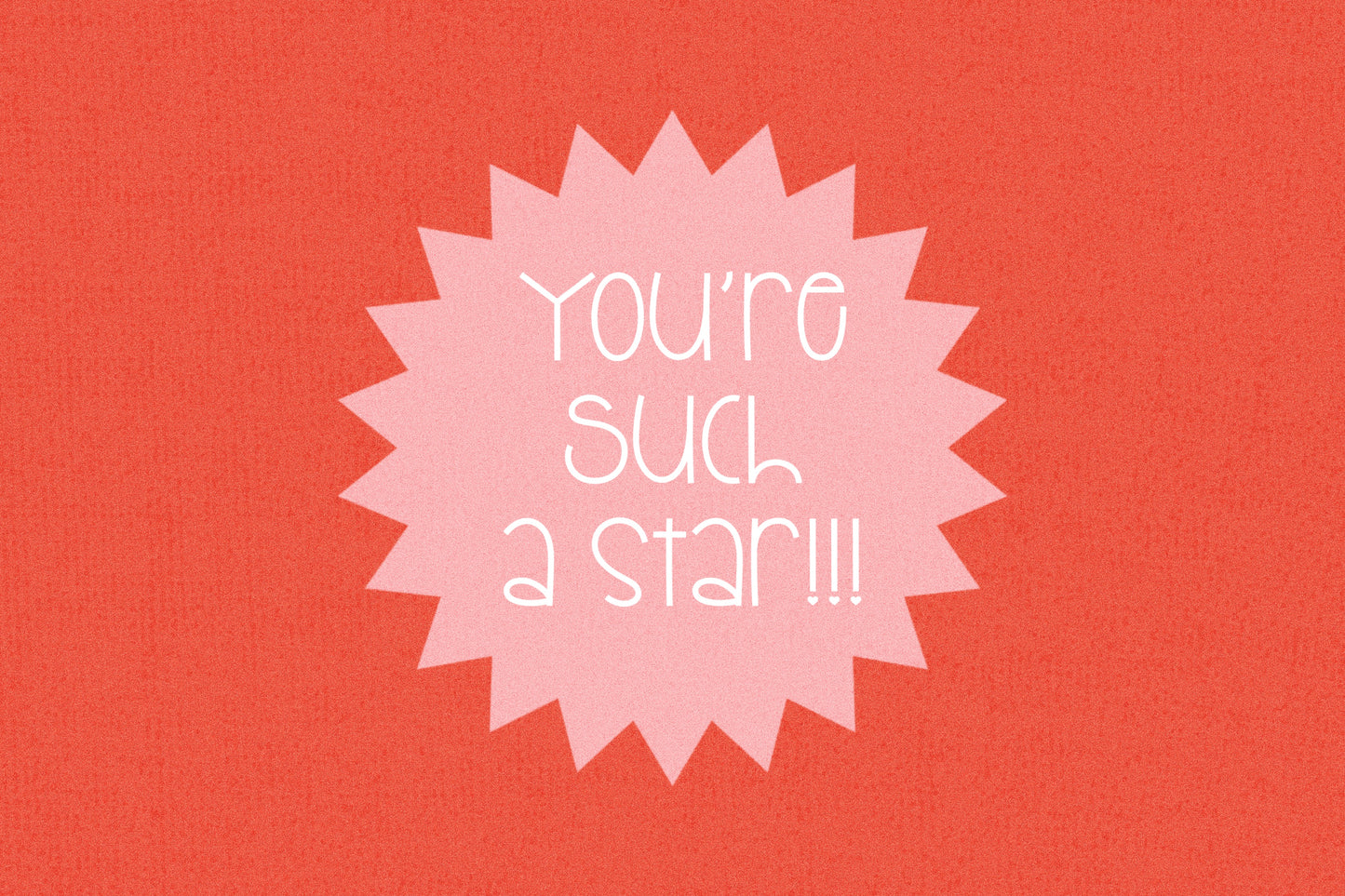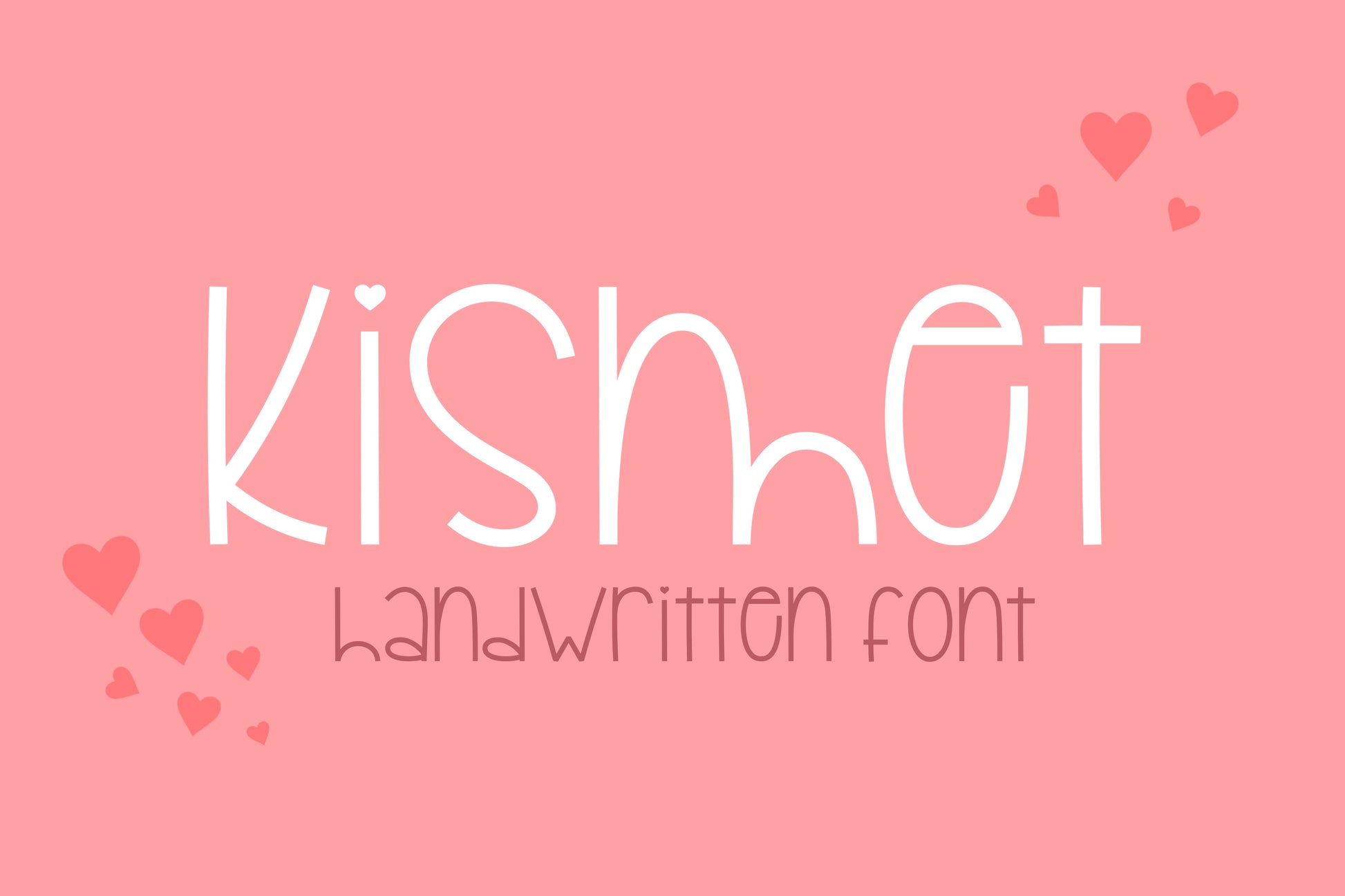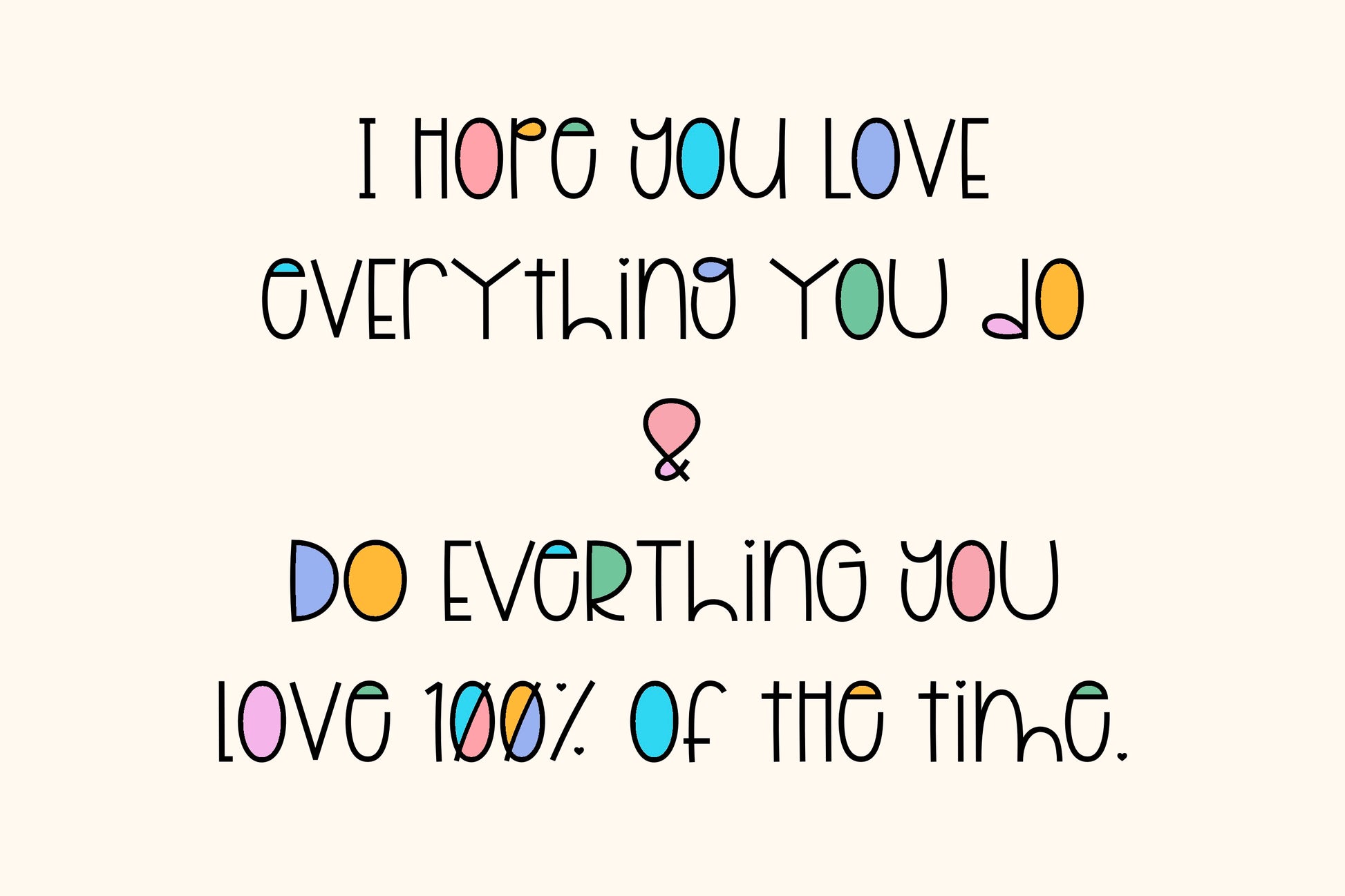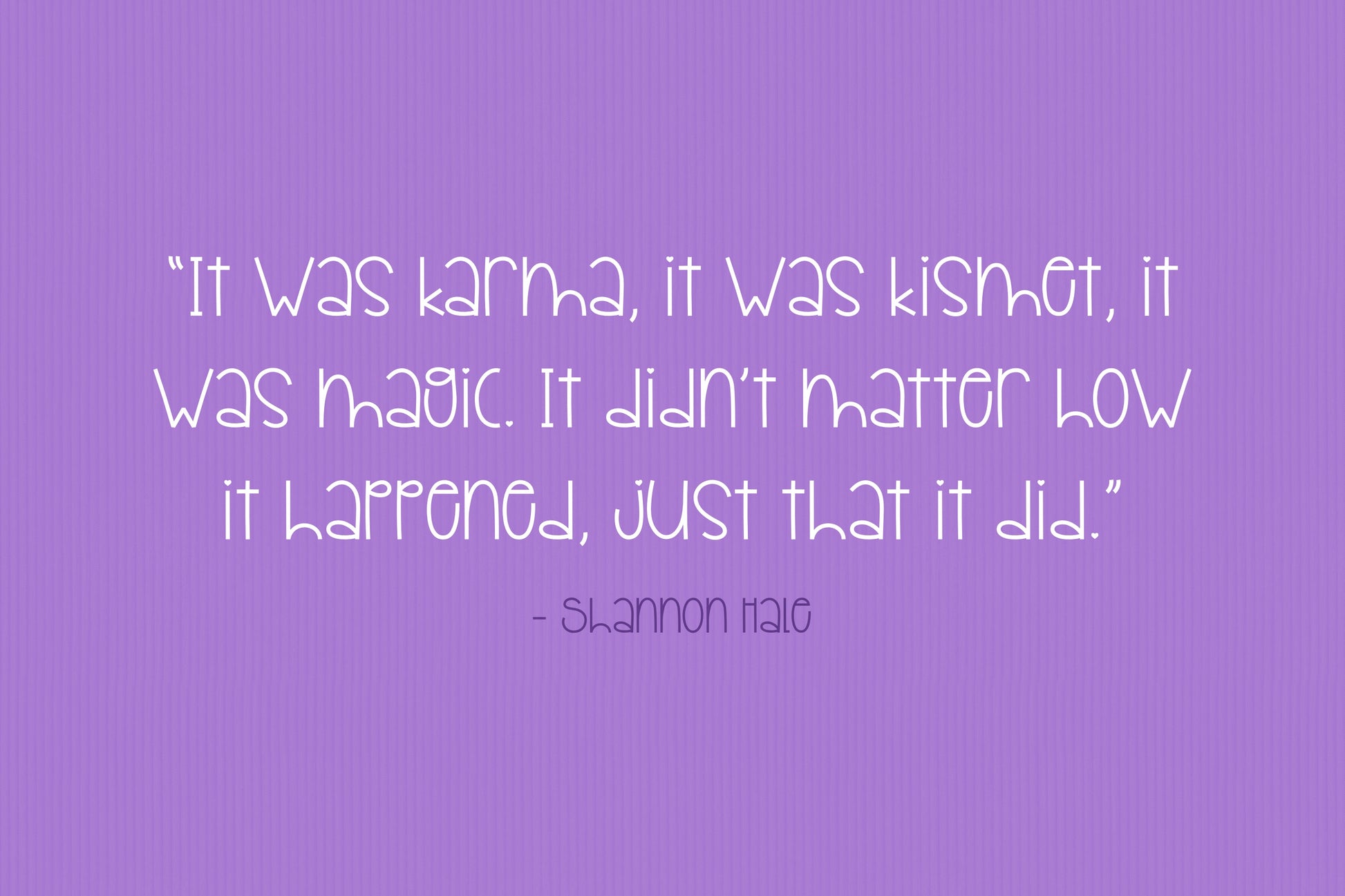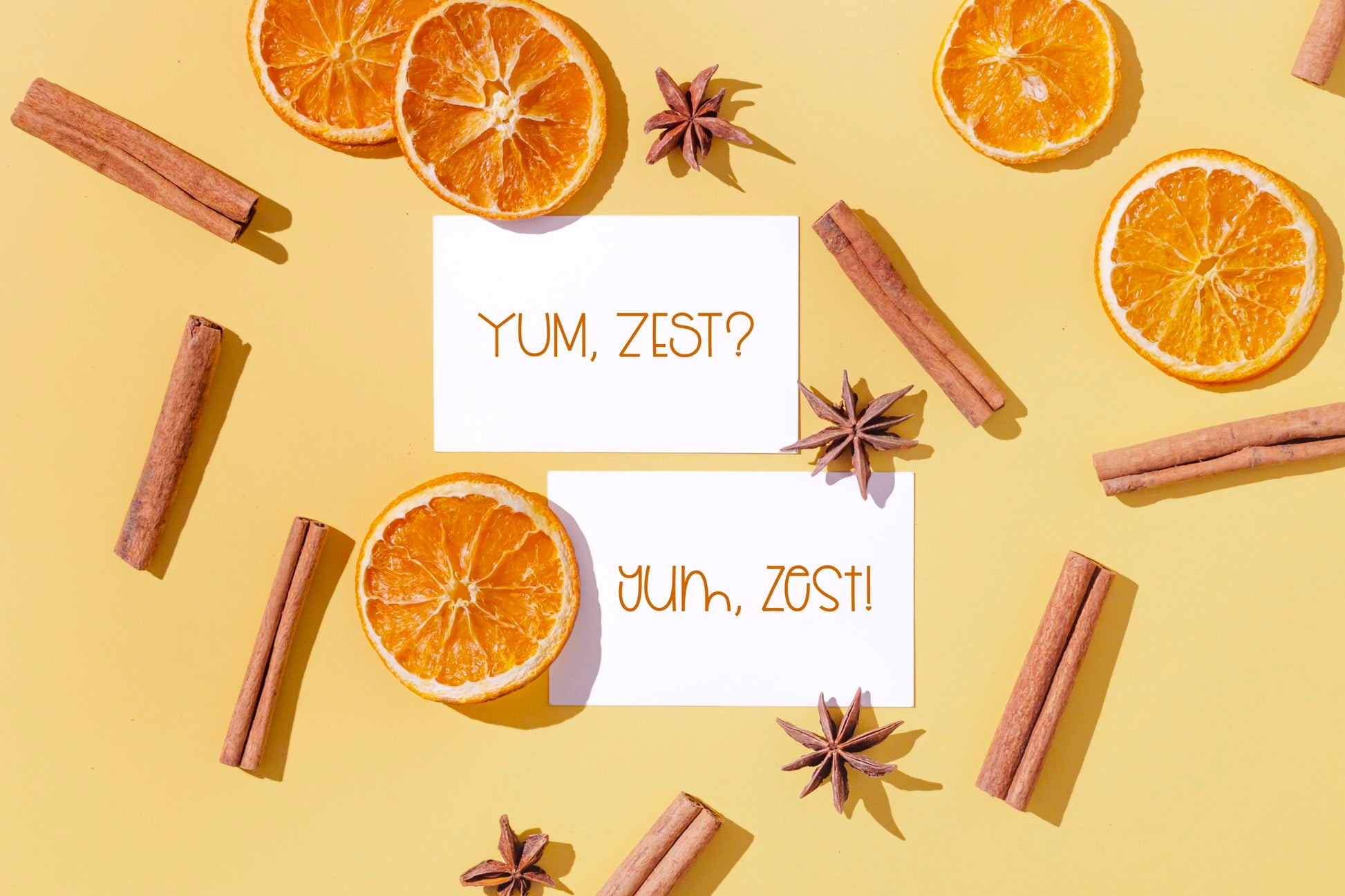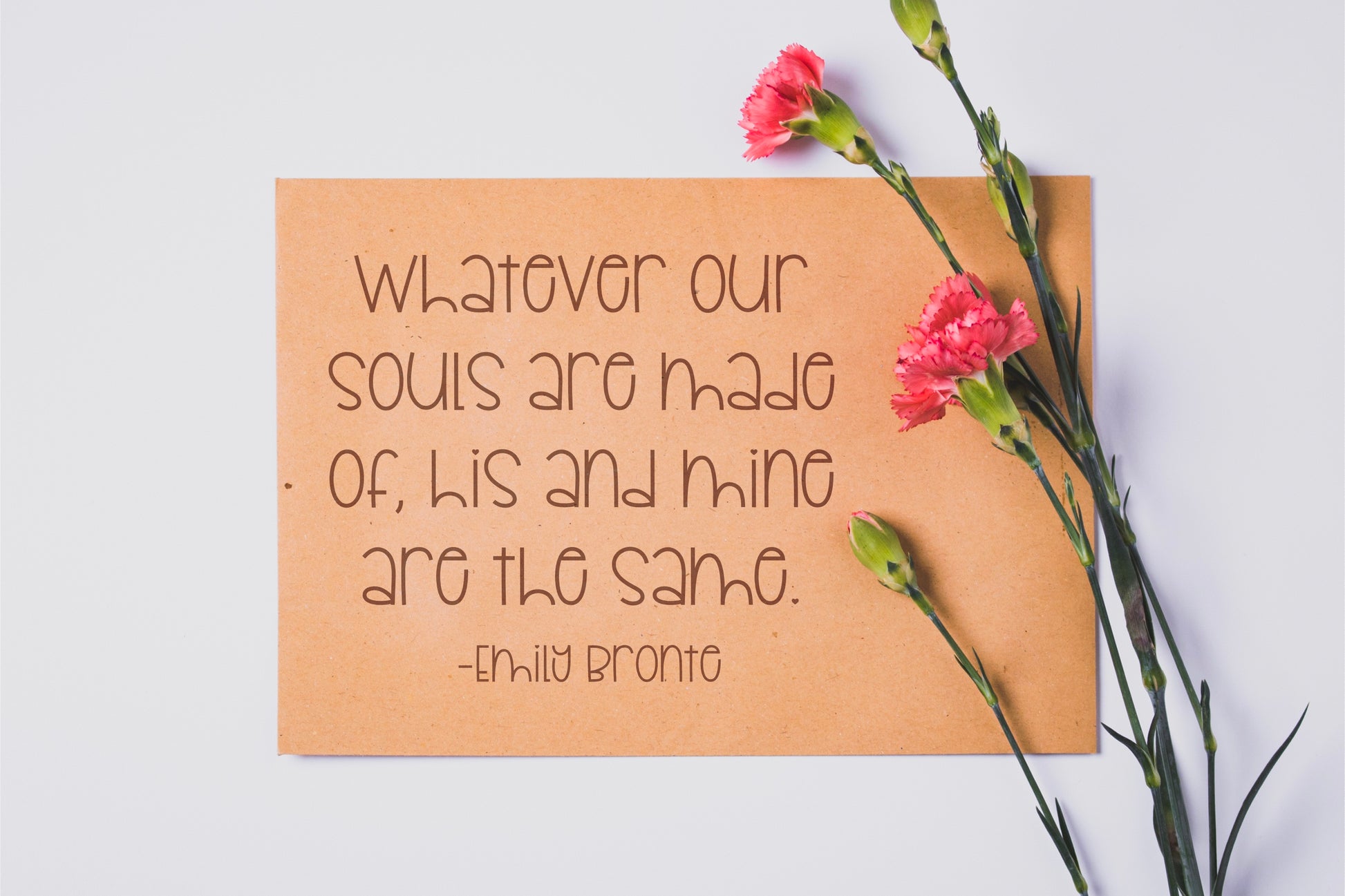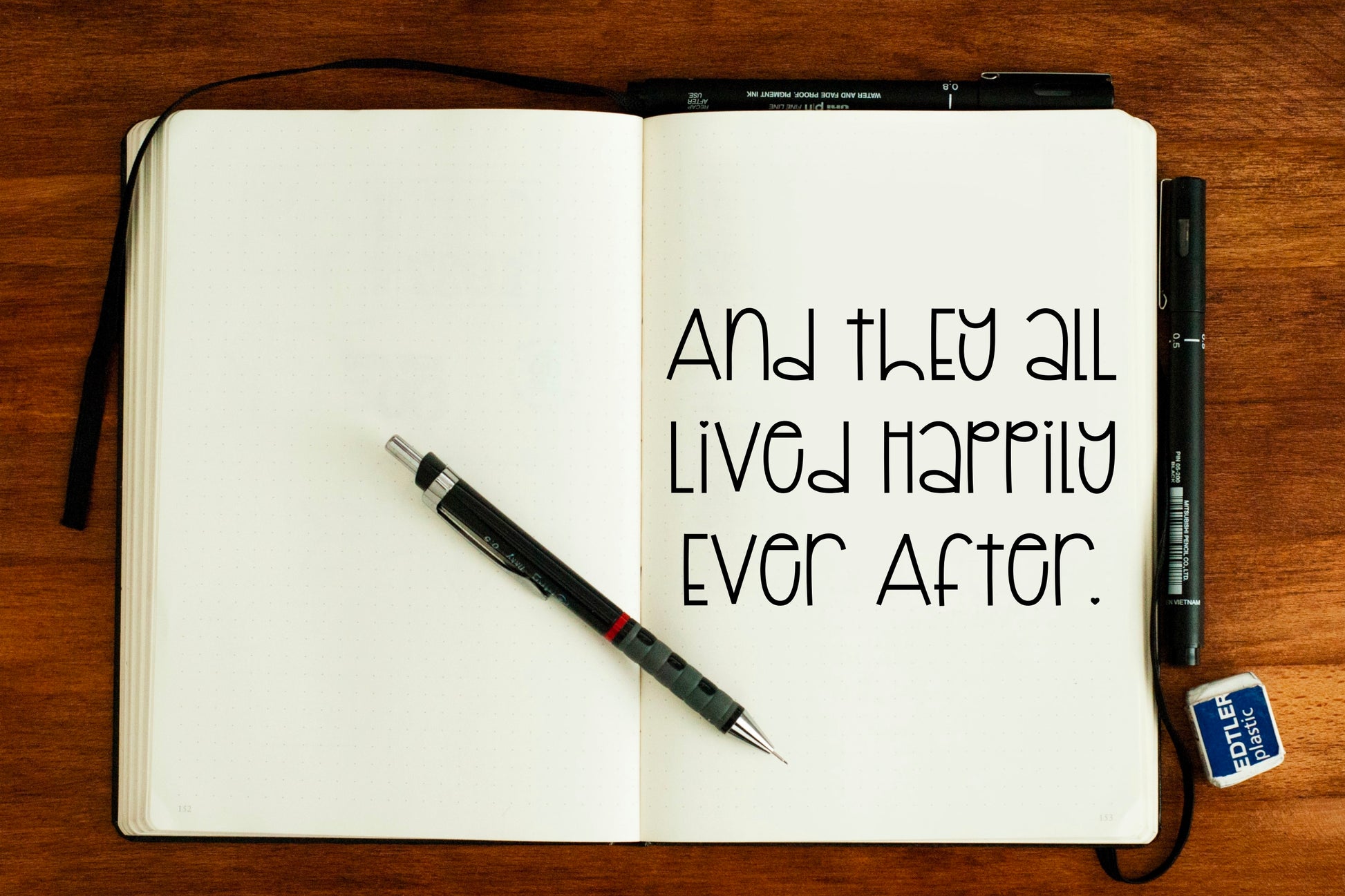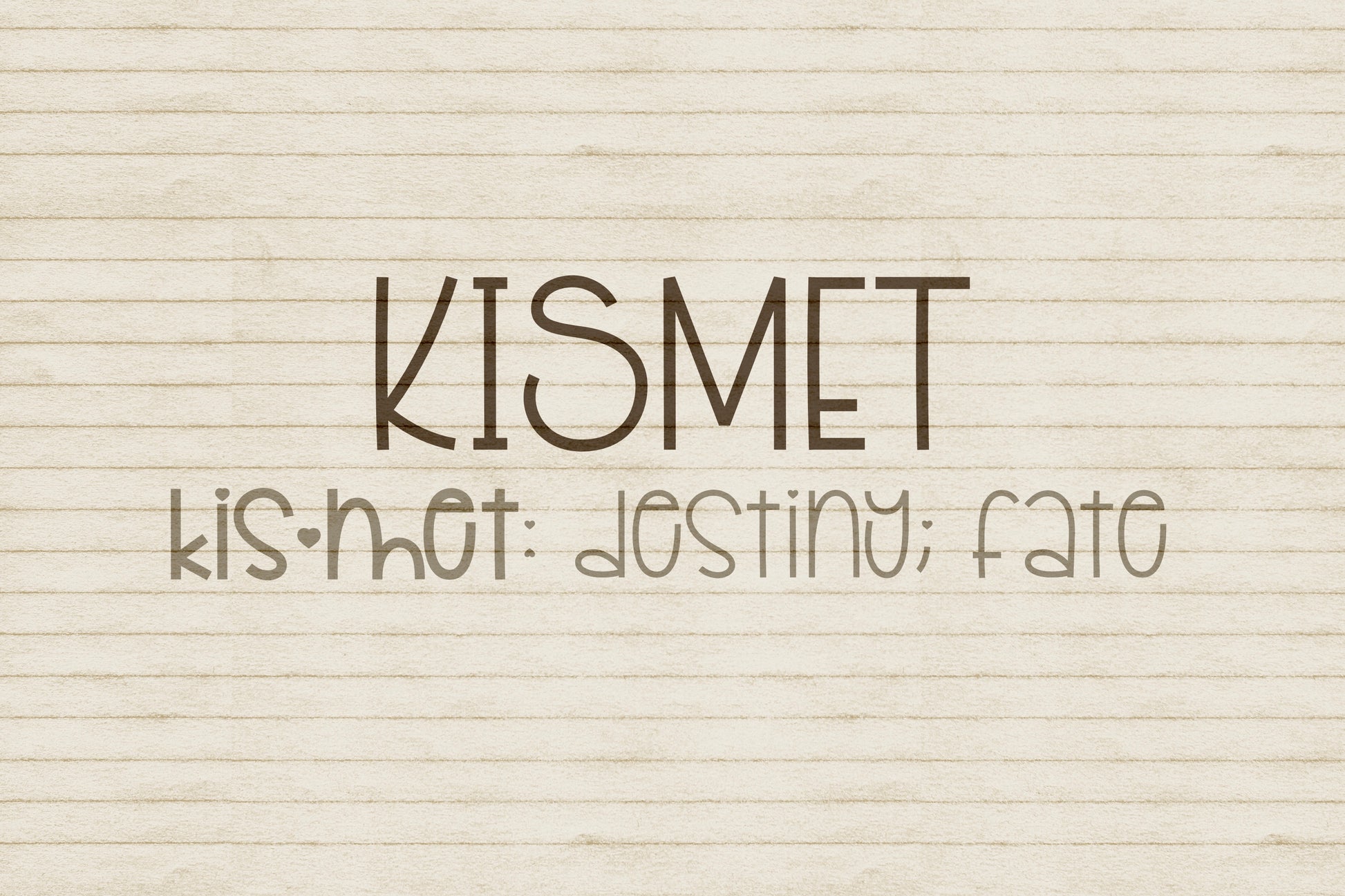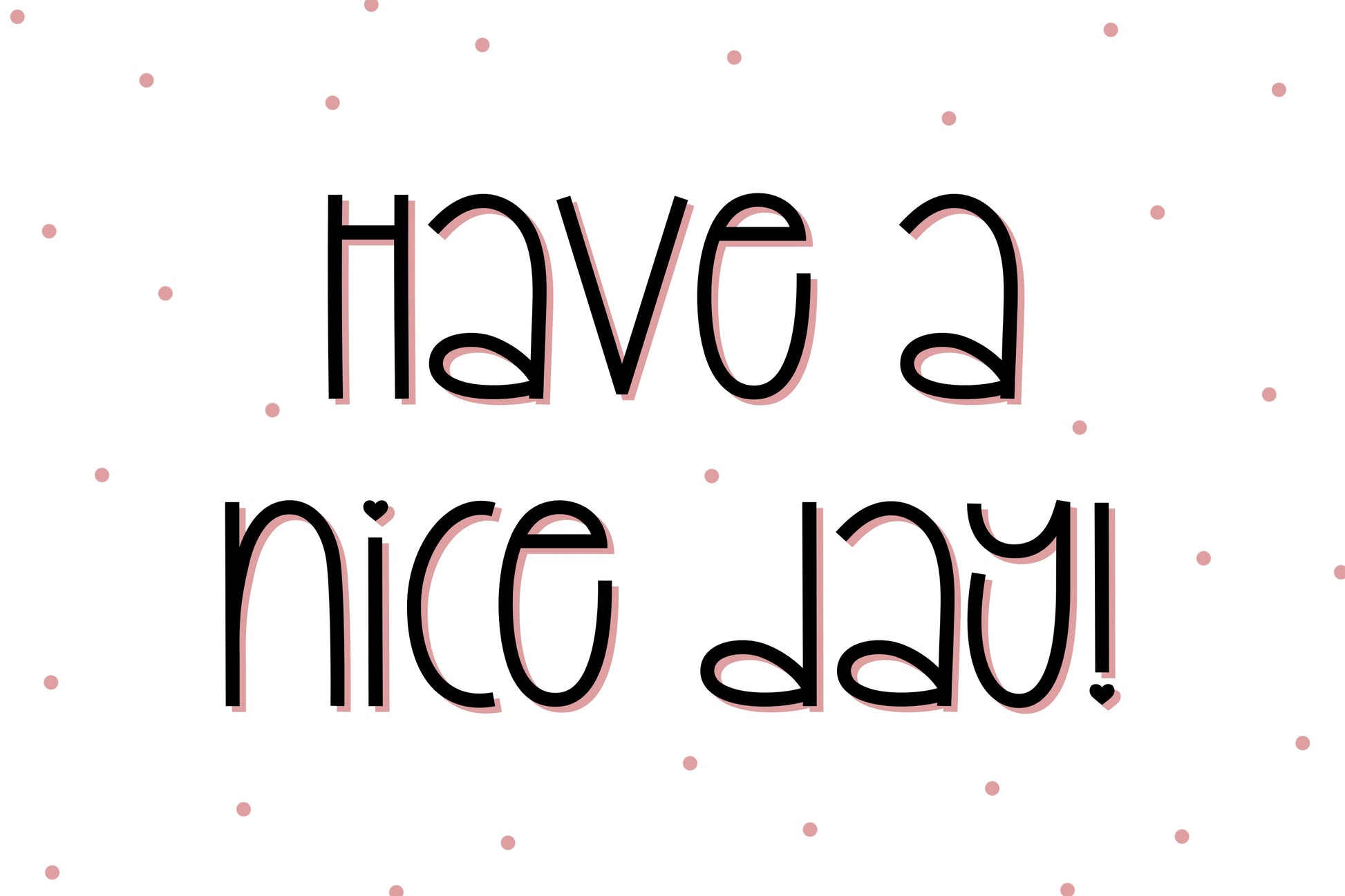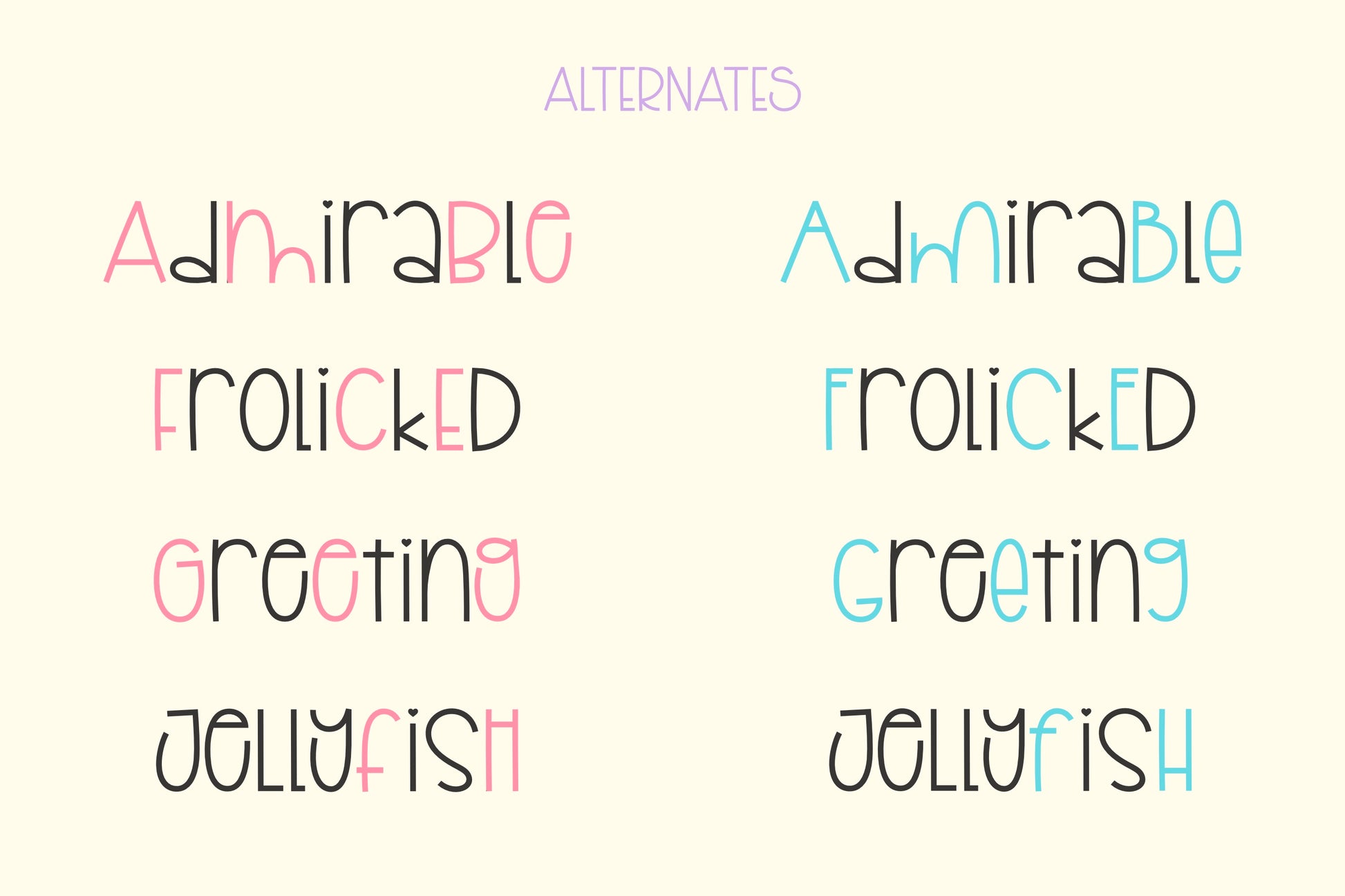
Kismet Handwritten Font
Introducing the cute and playful Kismet handwritten/hand drawn font. With some quirky & exaggerated letters and several alternates that provide a wide range of letter combinations, this font will add a fun, handmade touch to your design! It’s perfect for stickers, notes, posters, magazines, t-shirts, and more!